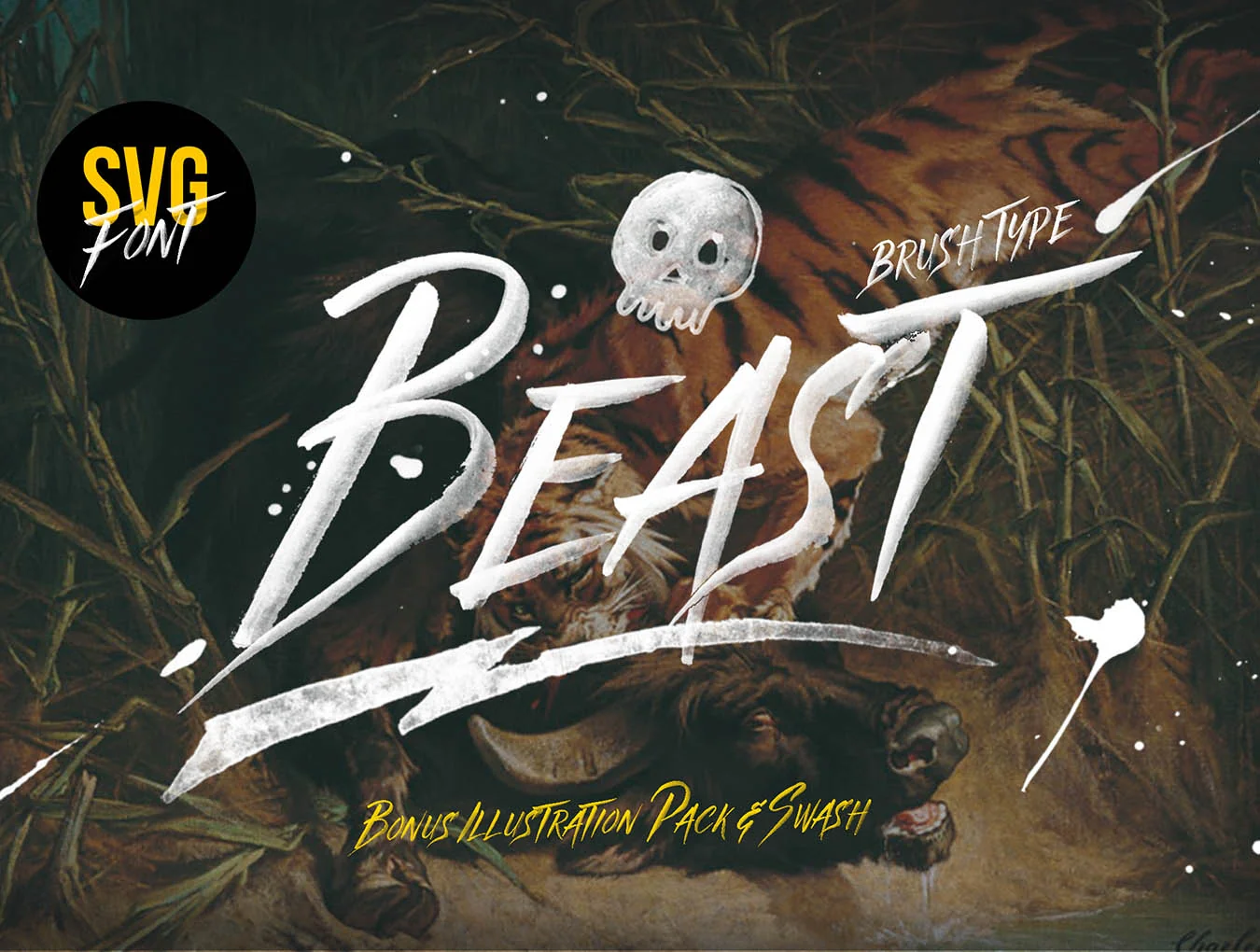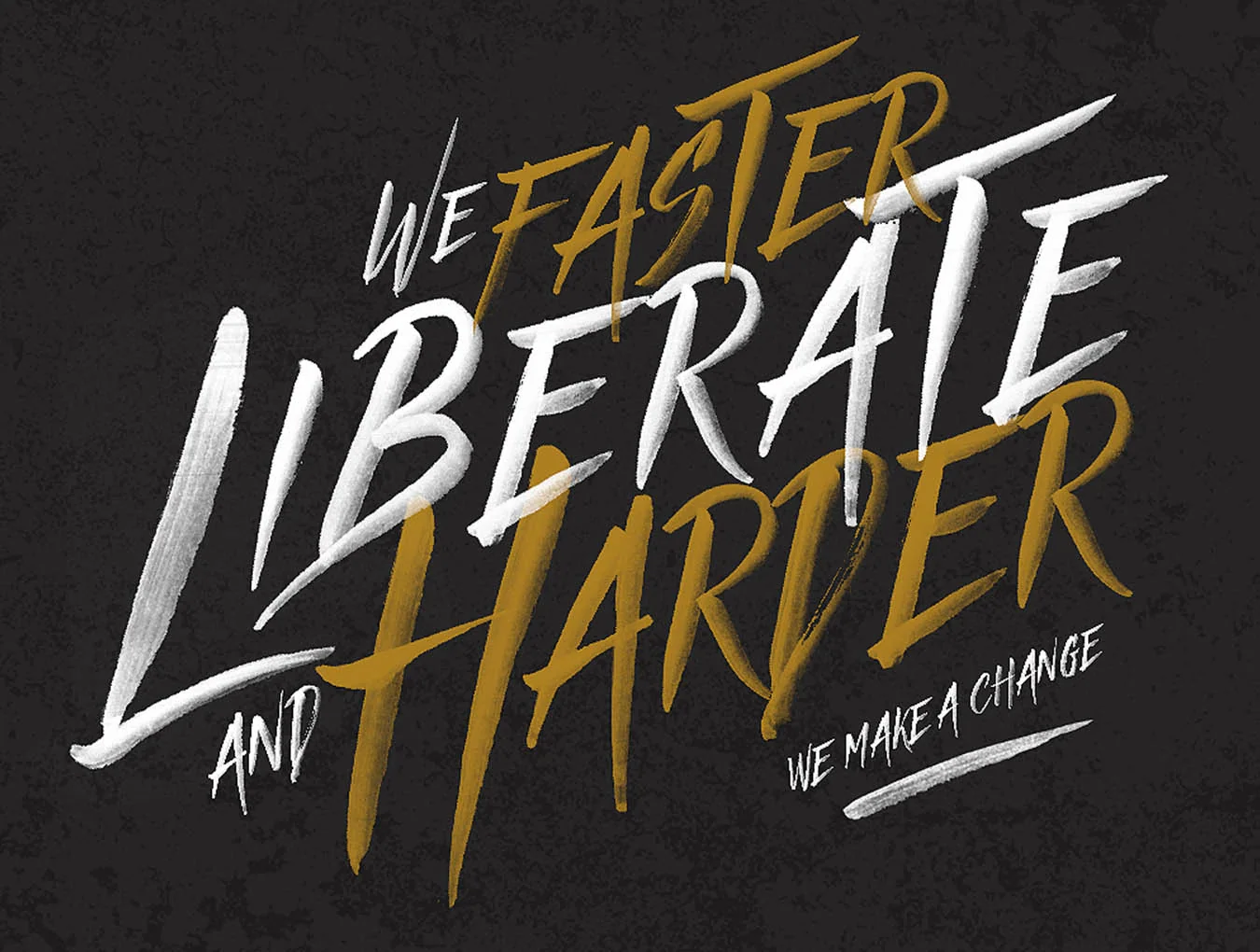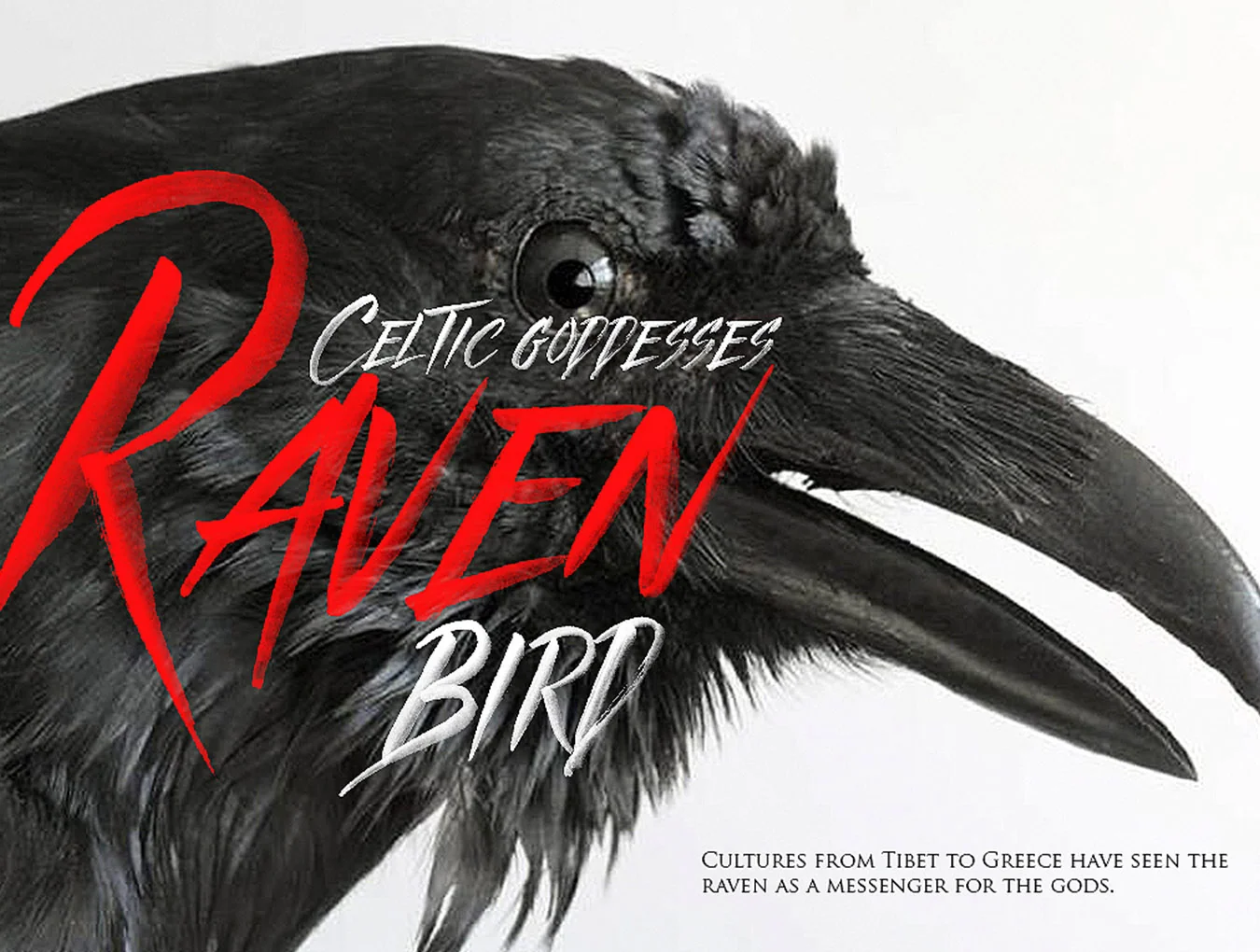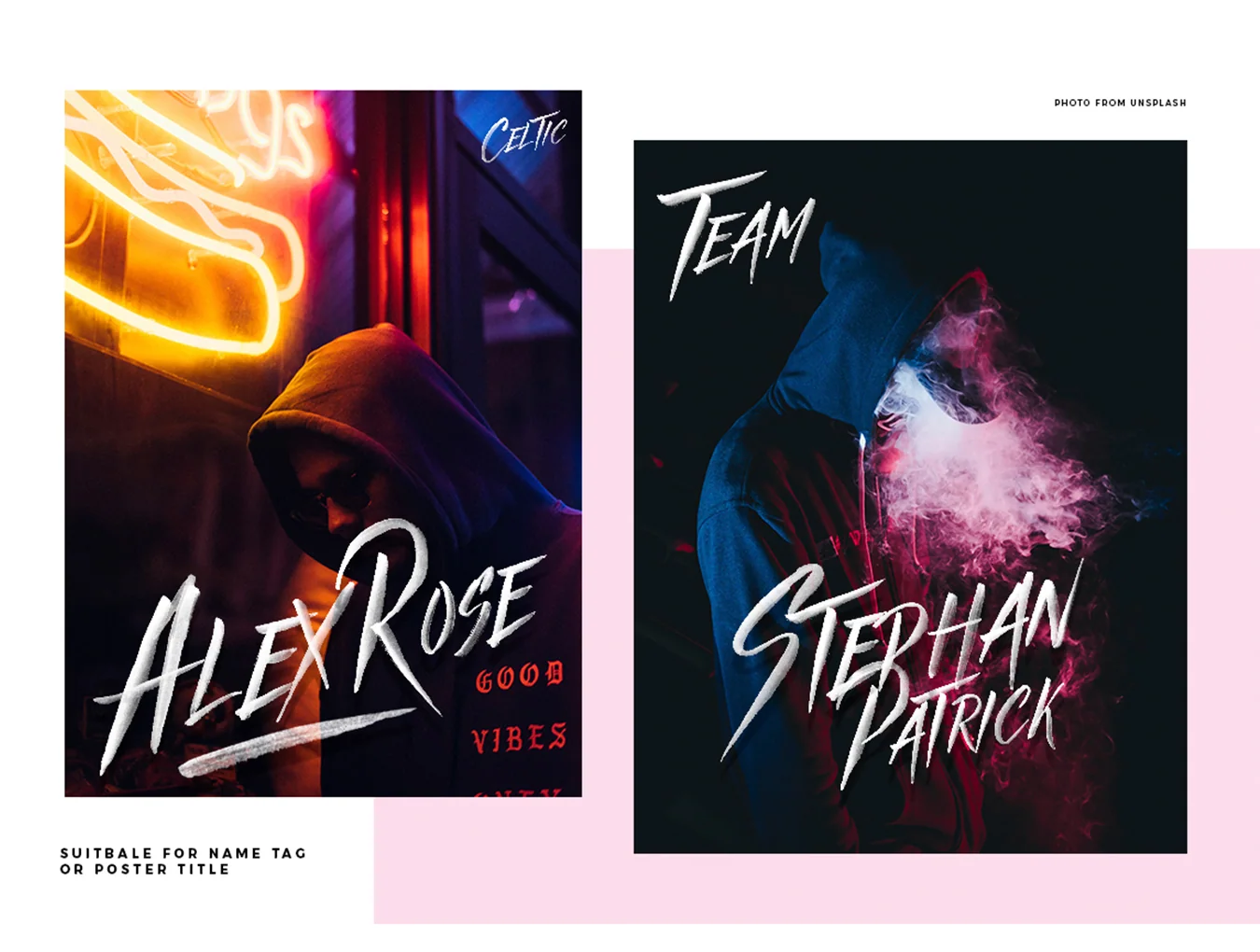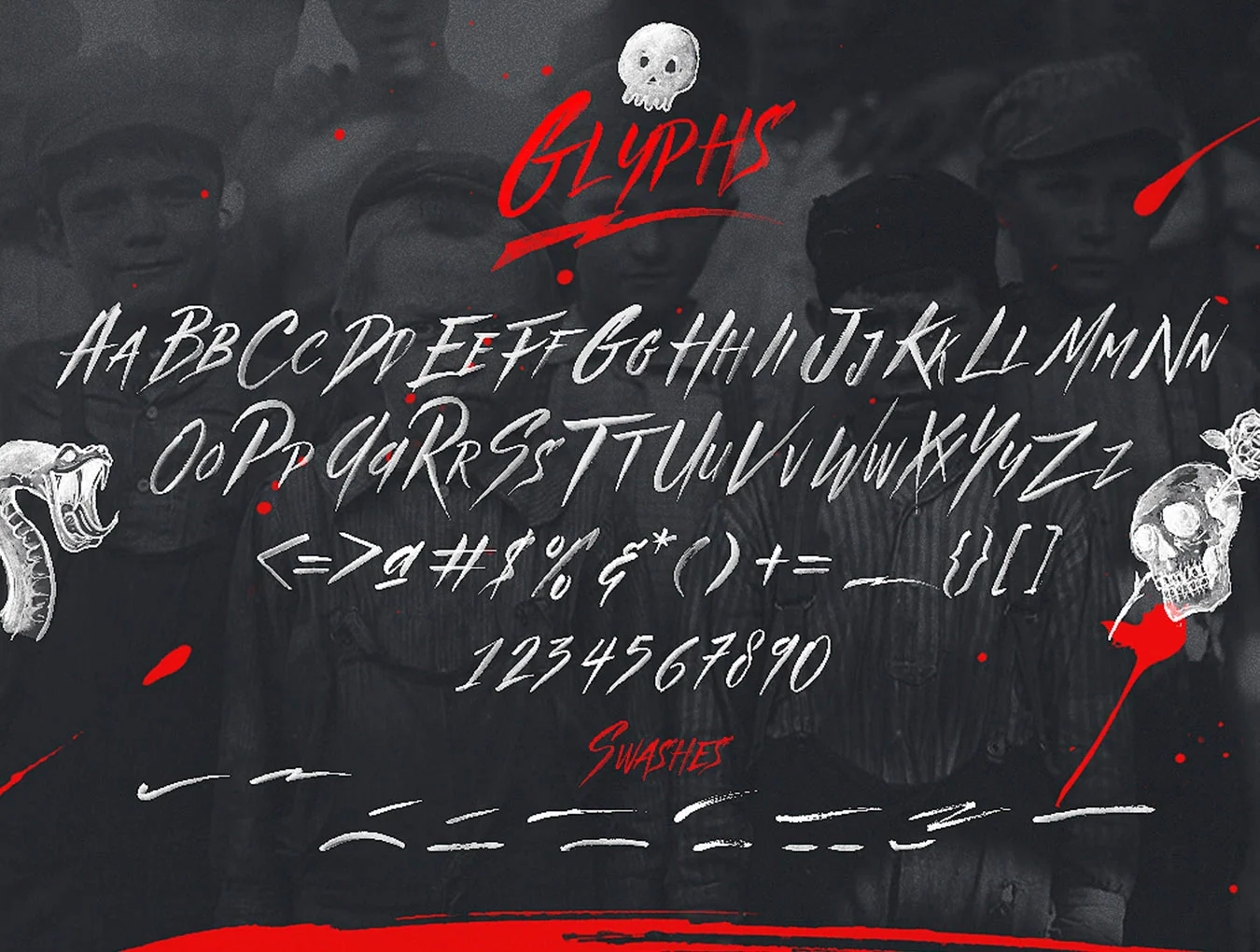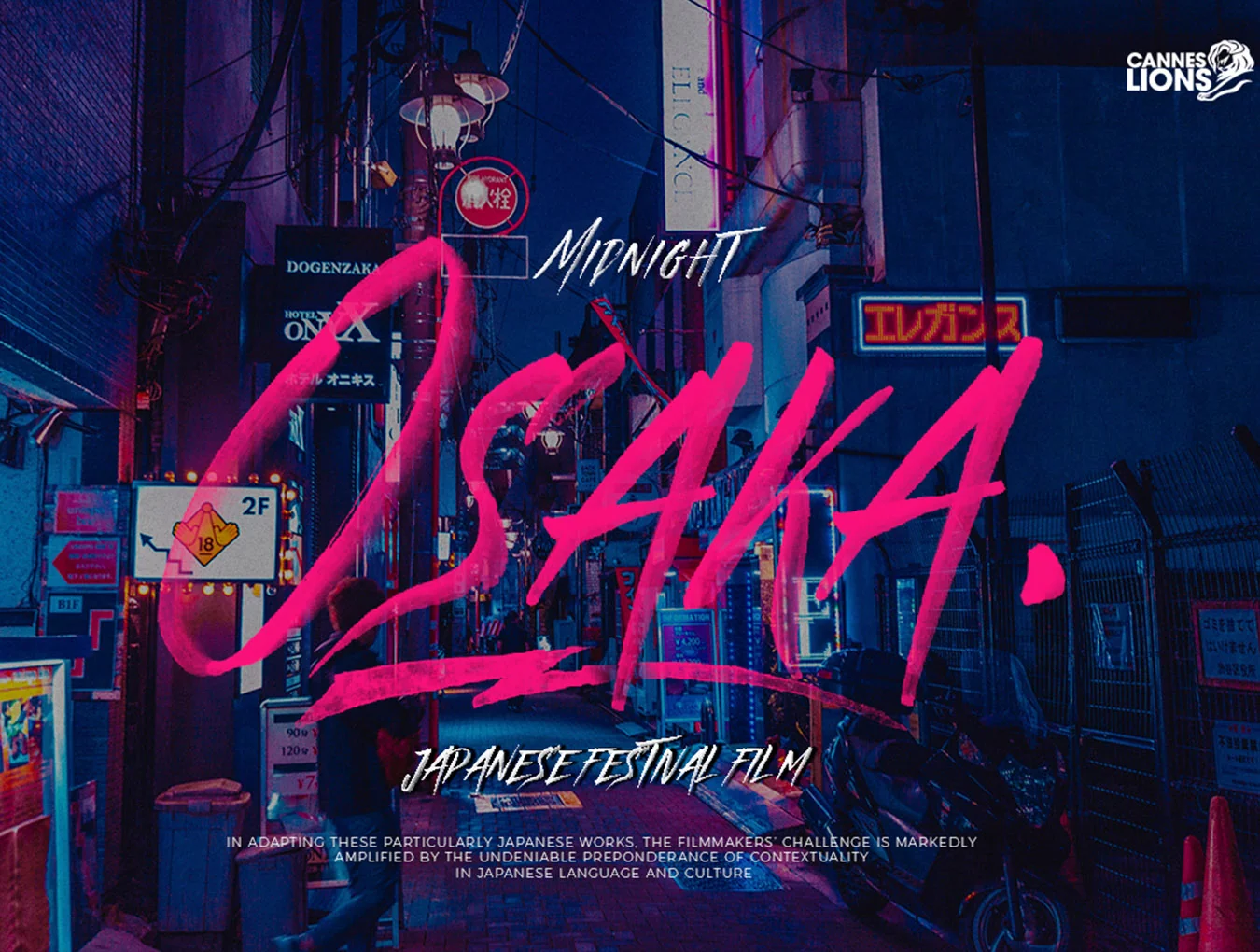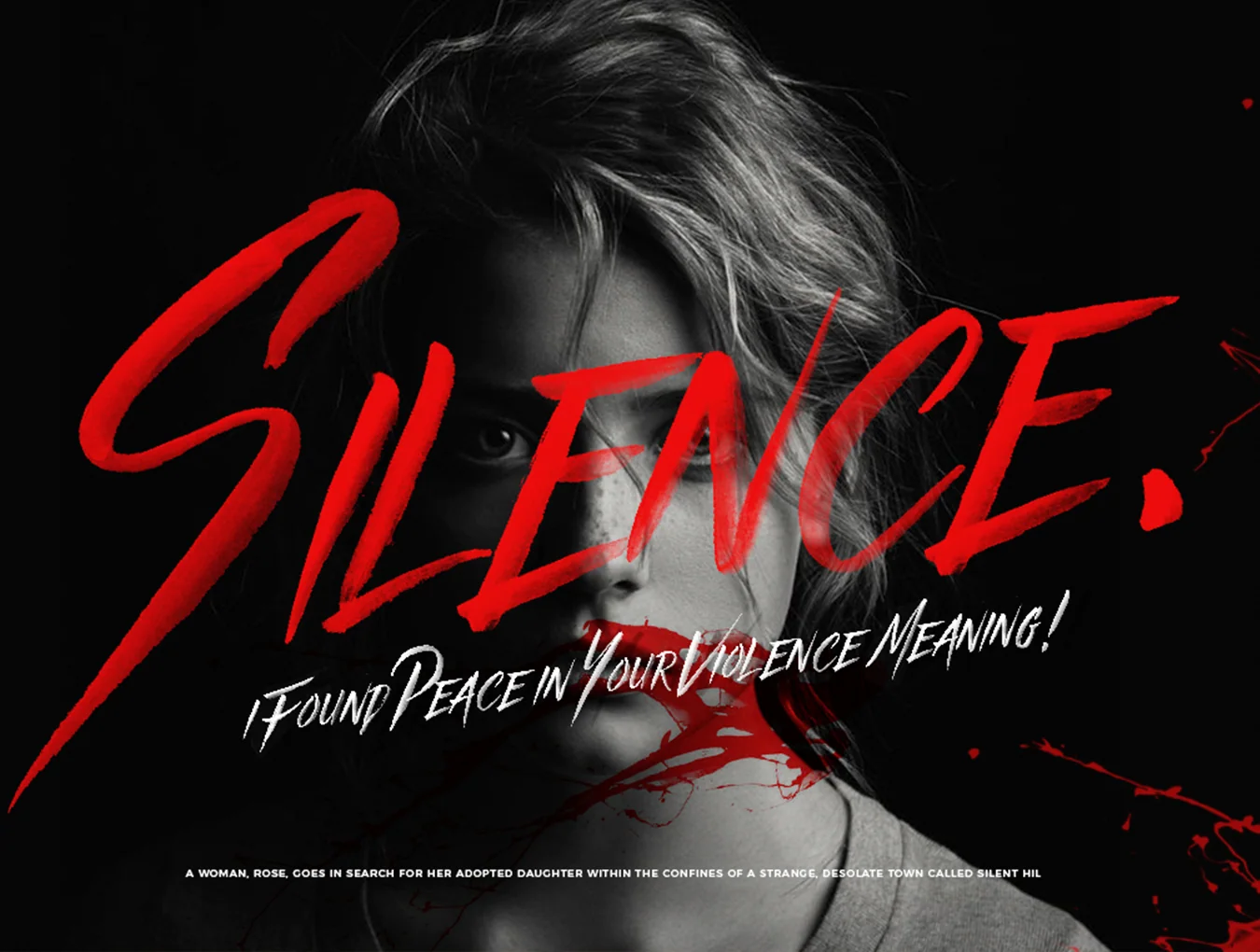
Beast
Extra PSD skull and swash artwork
Brush-style typeface
Typography-focused display
Meet Beast, a handmade brush-textured font inspired by rebellion, strength, power, and Japanese ink. OTF works with Photoshop CC 2017 or Illustrator CC 2017 and later, with Regular TTF included. Ideal for logos, apparel branding, film titles, name tags, posters, quotes, cards, and designs paired with the graphics pack.